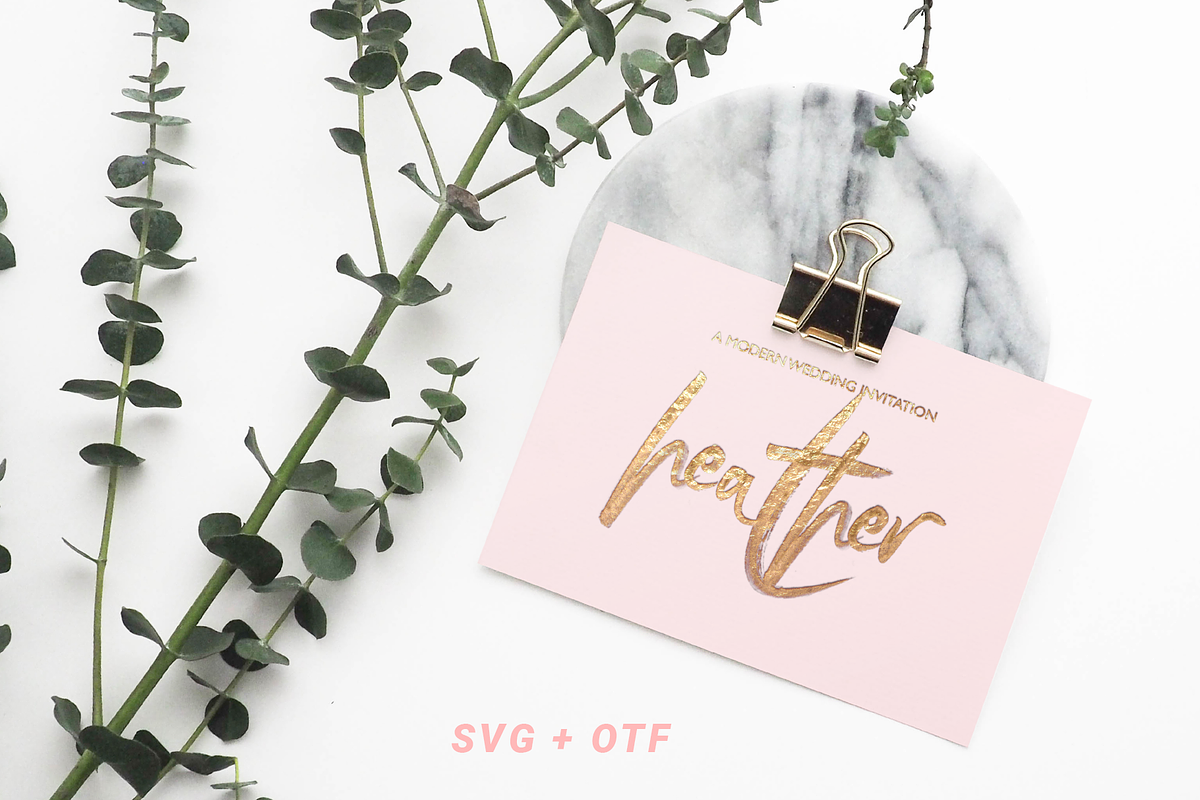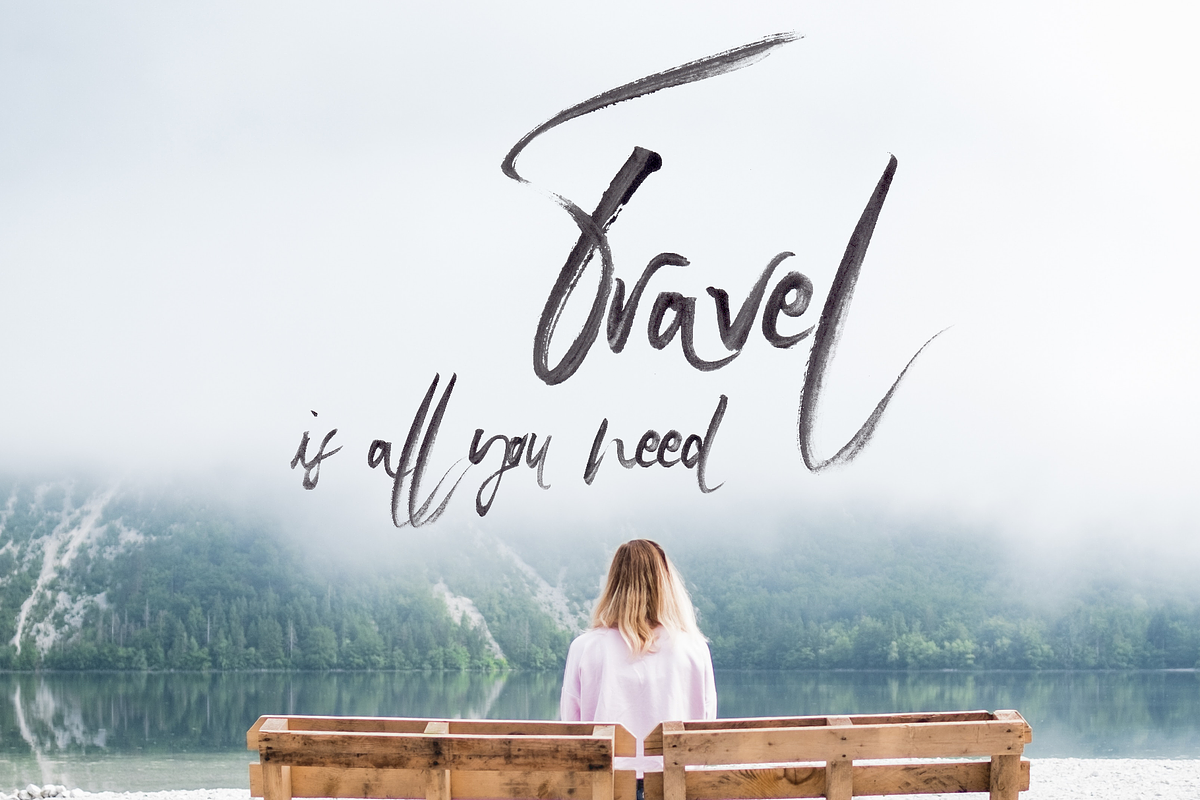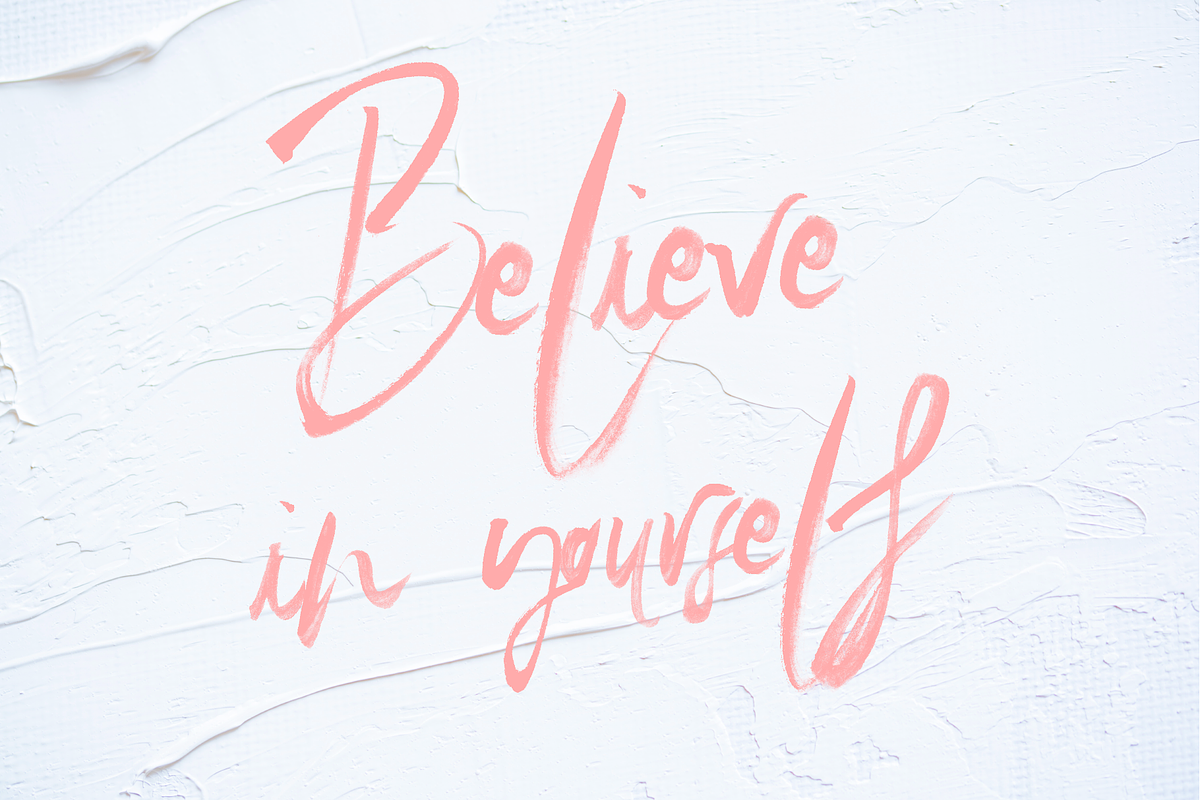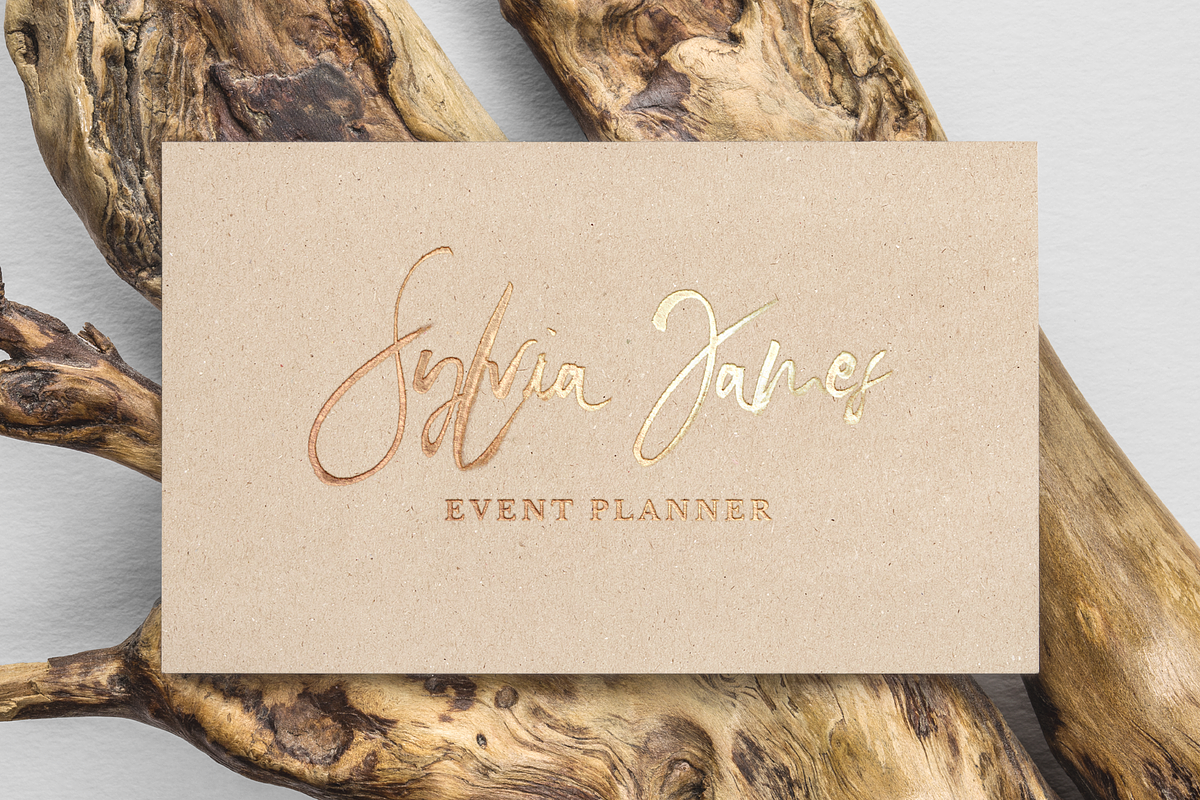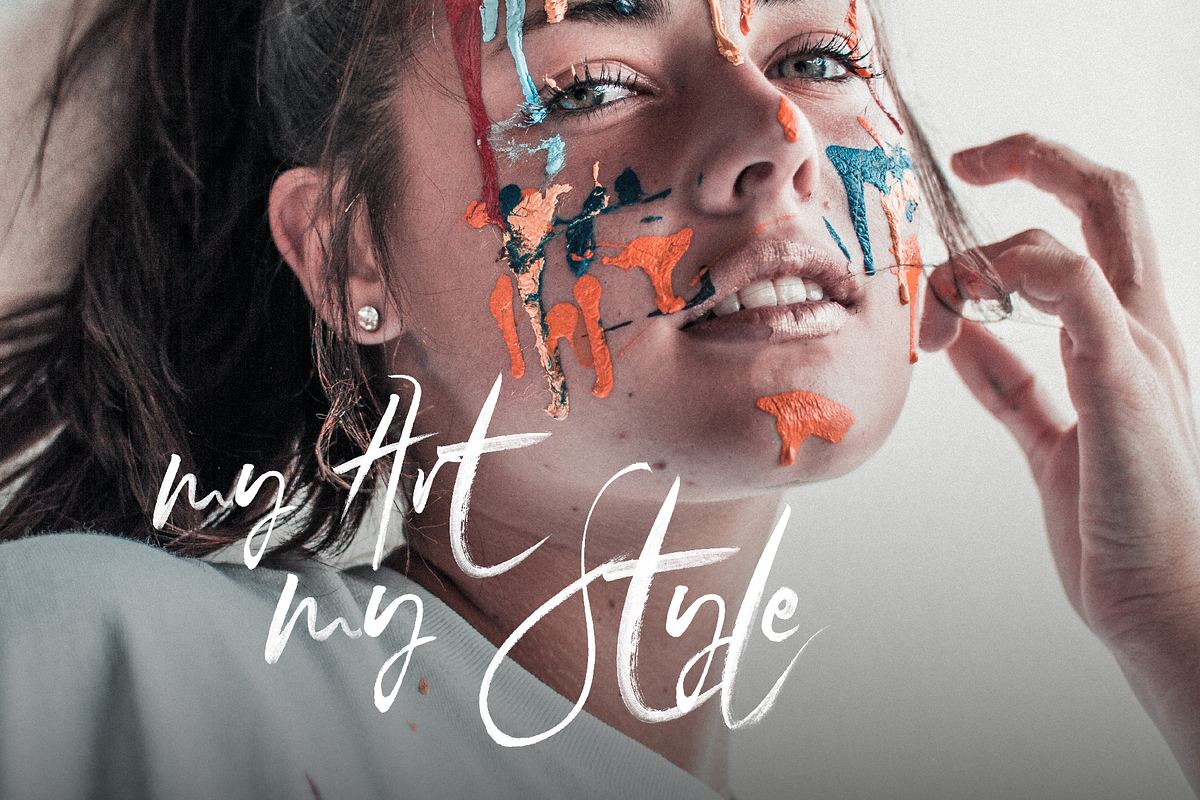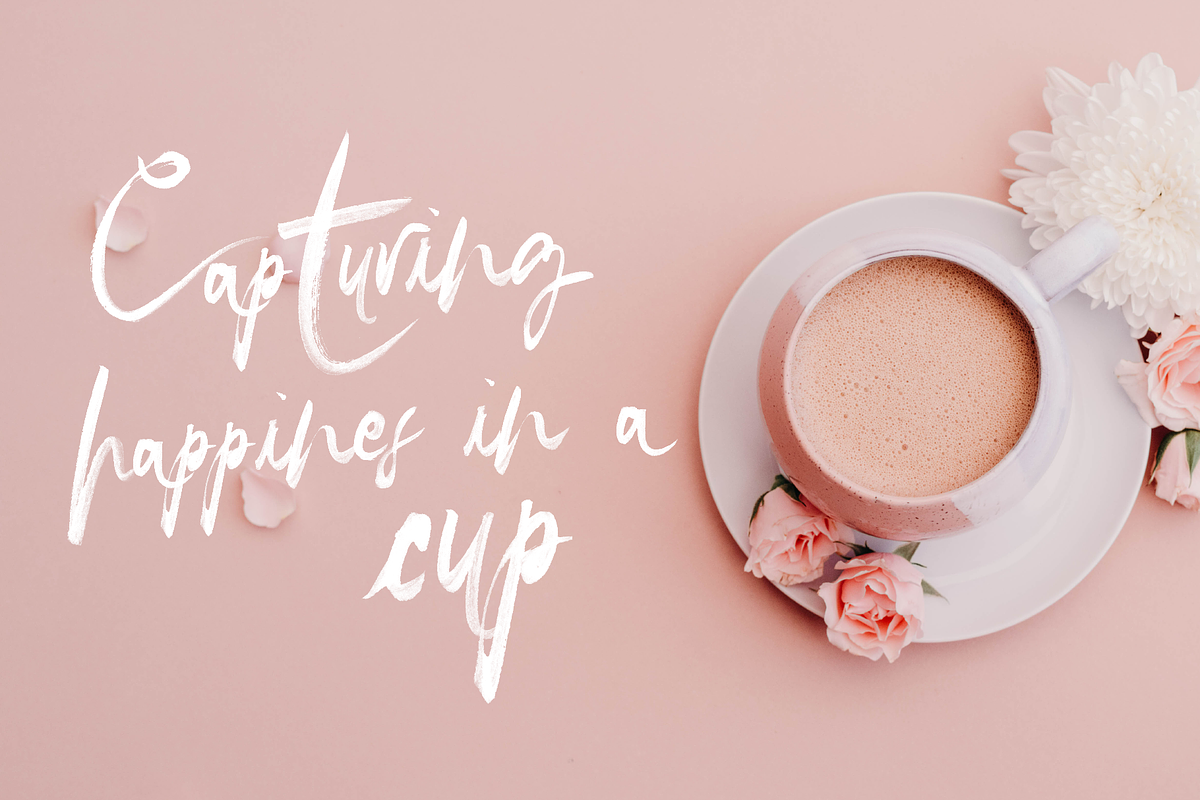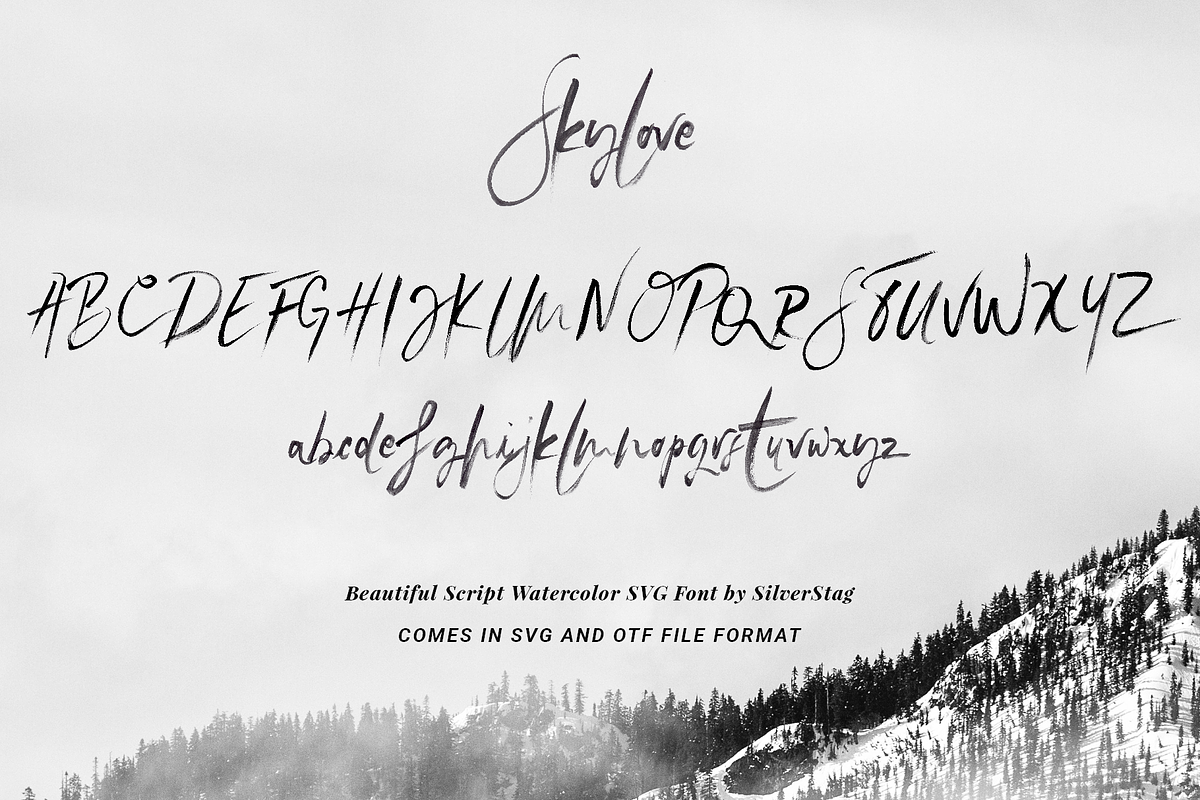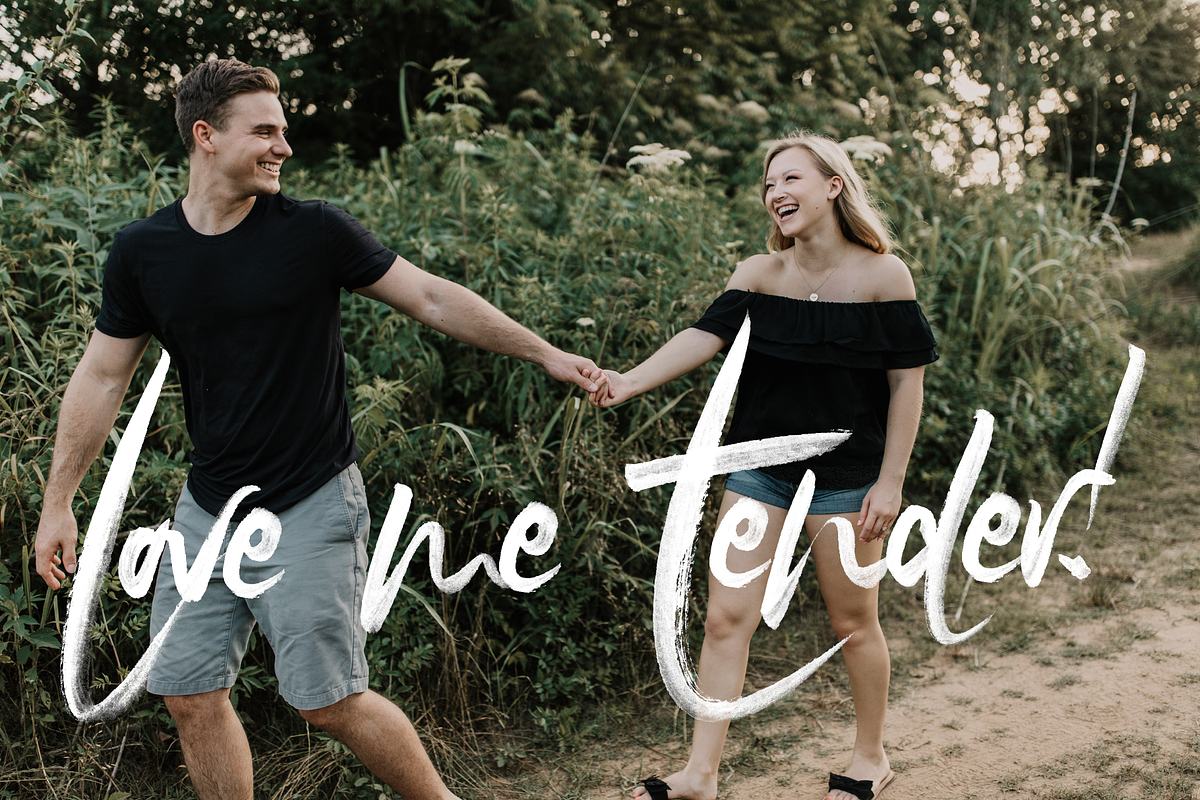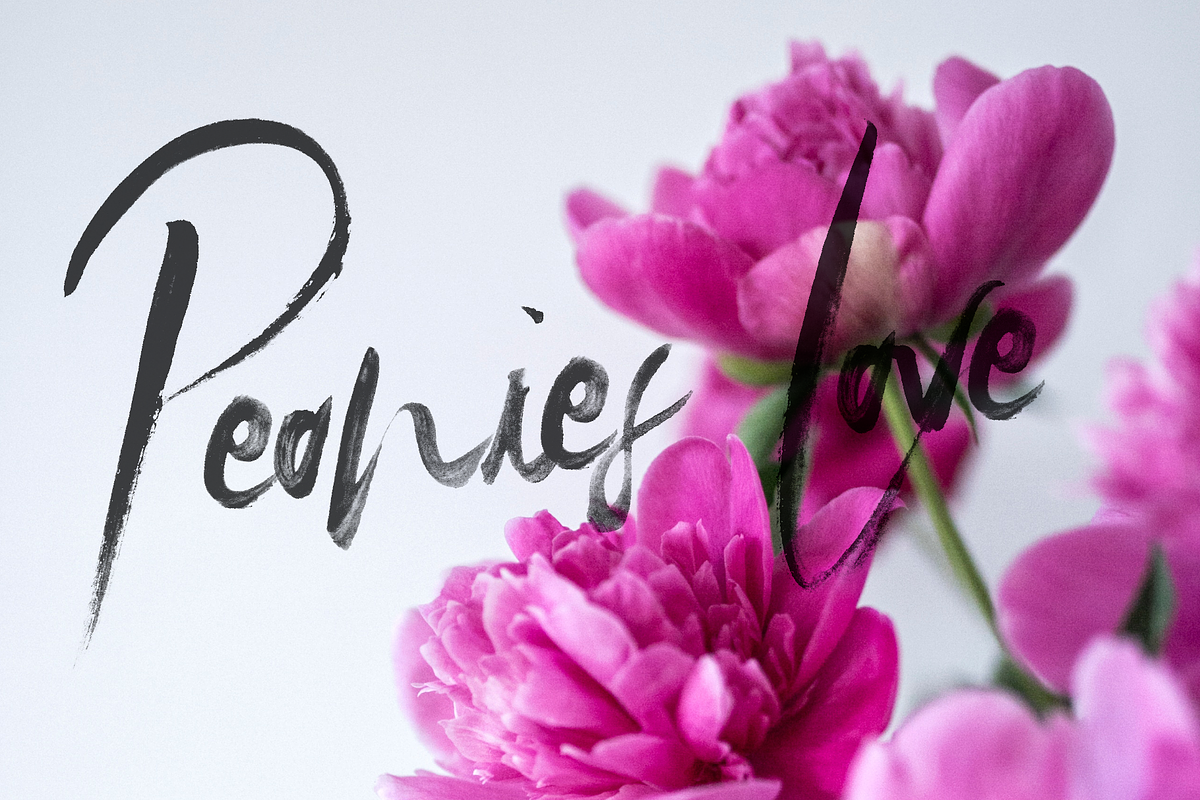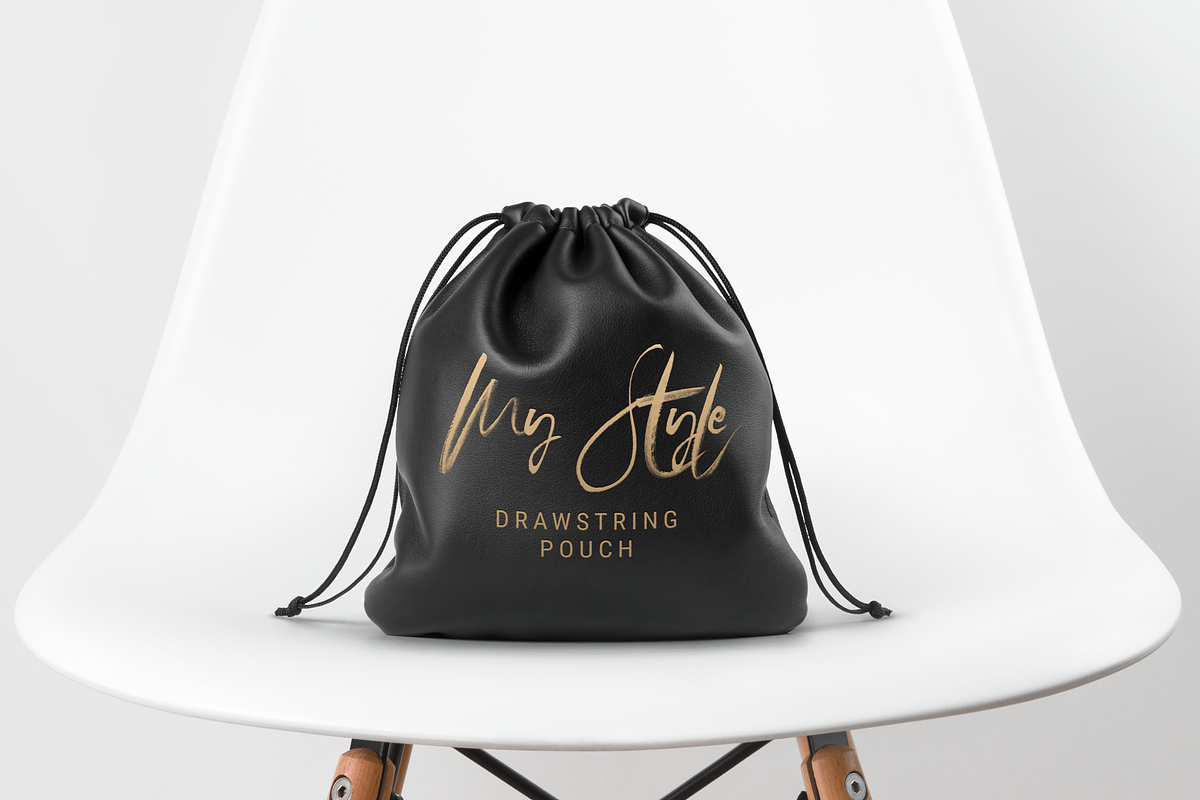
SkyLove SVG Watercolor Font
SkyLove is a watercolor SVG font that has a true hand drawn look and feel. SkyLove Watercolor font requires Photoshop CC 2017 or Illustrator CC 2018 (or newer) to use, however OTF SkyLove Script doesn’t require any specific software and can be used on any computer and in any software.
Great font by a very talented artist. Sadly it doesn't have any letter alternates and the very expressive lowercase 't' and 'l' make it difficult to use in any context that involves multiple use of these letters.